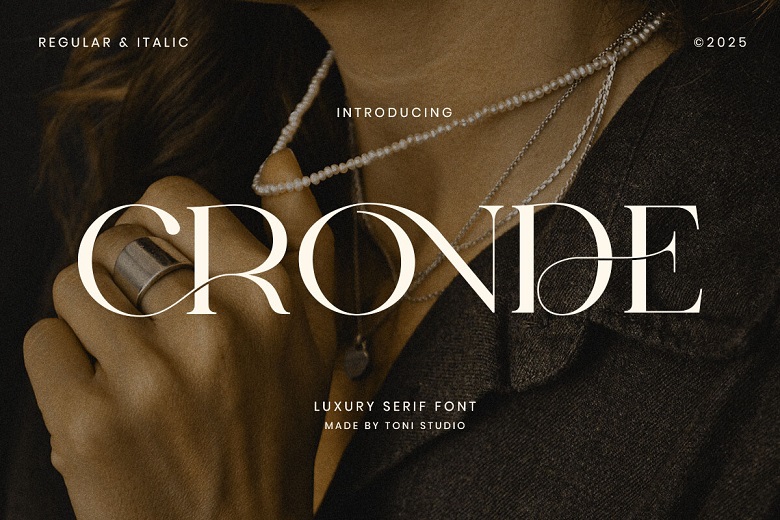
Cronde Font
Cronde is a luxury serif typeface, which has a modern minimalistic view and ligature design. It has regular and italic styles, which have flexibility in editorial and branding applications. The high vertical ratios, fine contrast, and smooth curves give the typography a high-end tone that is appropriate in high-end layouts.
Cronde is best to use as a brand, jewels, and luxury fashion magazines. It is very readable and unique in both print and electronic compositions and is very smooth in its balance between classic serifs and modern forms.
Cronde works best with high-end branding, editorial layouts, fashion logos and packaging, magazines, beauty products, wedding invitations, product packaging, and social media. Cronde is a contemporary serif typeface that you can consider to bring sophistication and confidence to your designs, as well as to create timeless luxury.
Cronde Serif Font